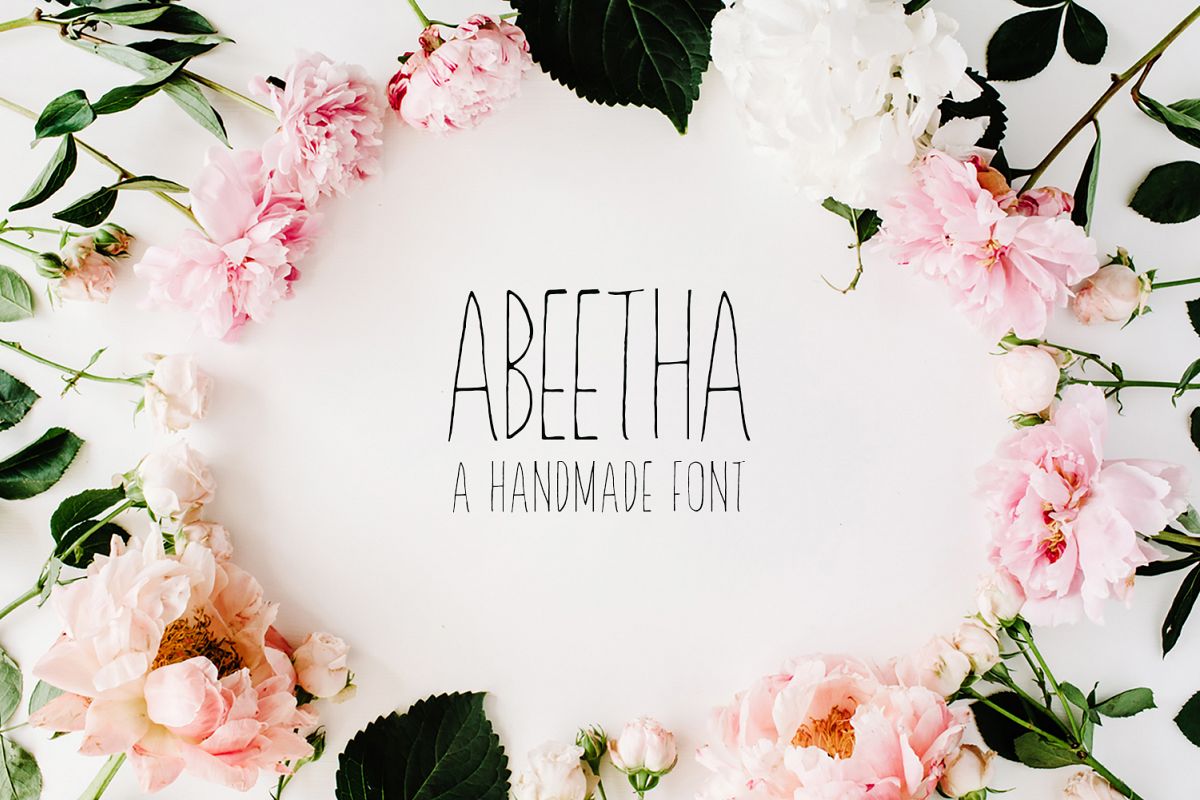
Abeetha Handmade Font
Abeetha-Regular
Abeetha is a clean handwritten sans serif font. It comes up with a complete set of Lowercase, Uppercase Numbers and Alternates. Best for prints, logos, quotes, badges, labels, packaging design, blog, websites, designs, headlines, banners, posters, printings, T-shirts, magazines, promotional product, templates, etc.